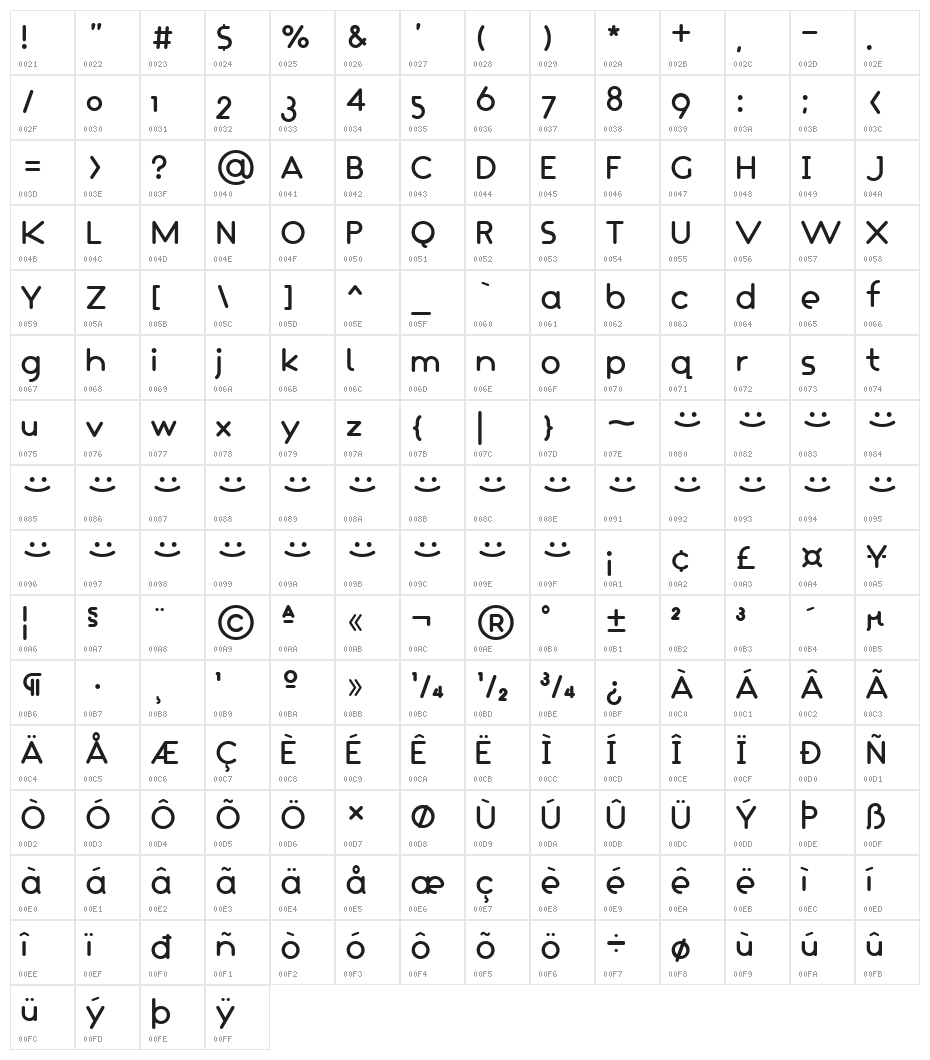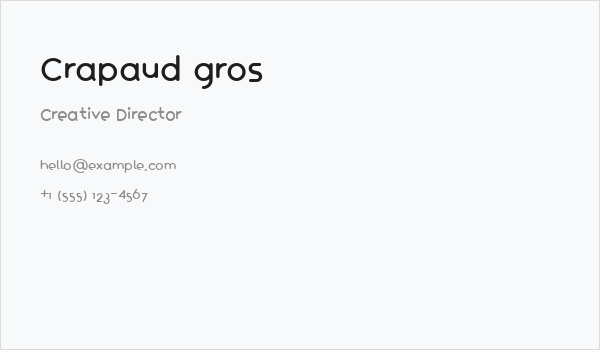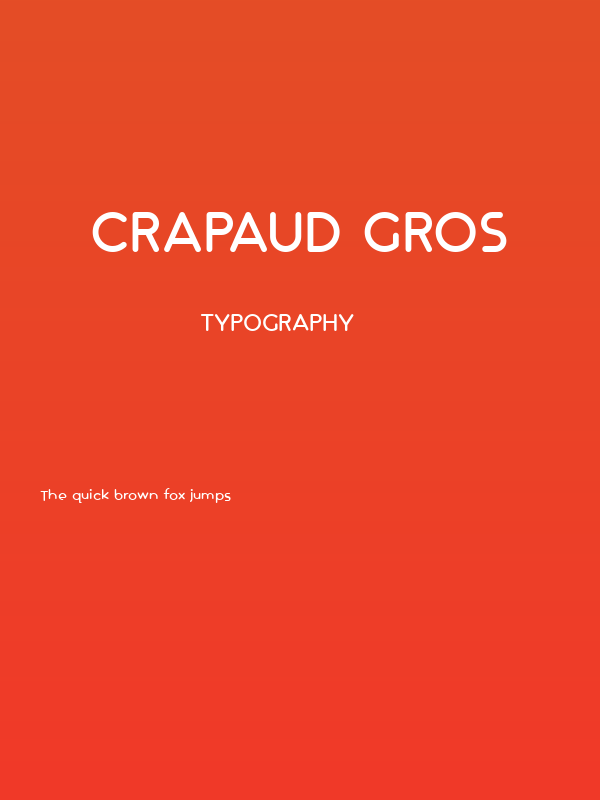
Crapaud gros Font
Crapaud gros Description
This font features a playful and rounded design, characterized by its smooth curves and consistent stroke width. The letters are bold and have a friendly appearance, making them highly legible and approachable. The uppercase and lowercase letters maintain a uniform style, with rounded edges that give the font a soft and welcoming feel. The numerals and special characters follow the same design principles, ensuring a cohesive look across all characters. This font is versatile and can be used in various design contexts where a modern and approachable aesthetic is desired.
Use CaseHeadlines, Logos, Casual Text
Proposed ProjectsIdeal for children's books, playful branding, casual invitations, and friendly web design.